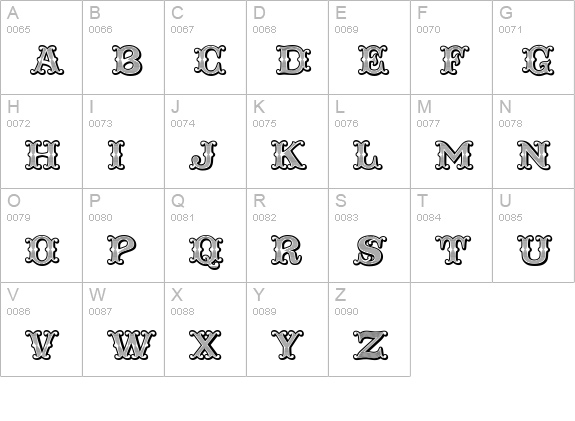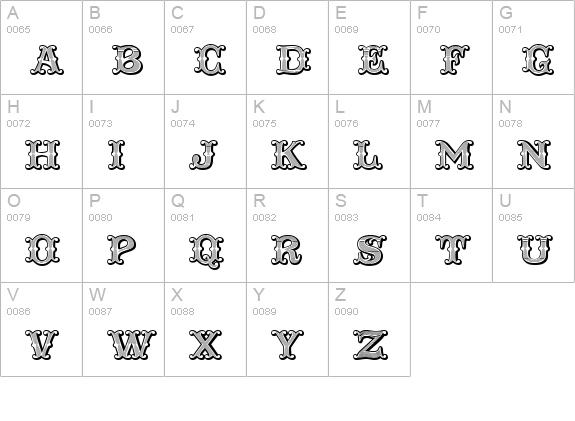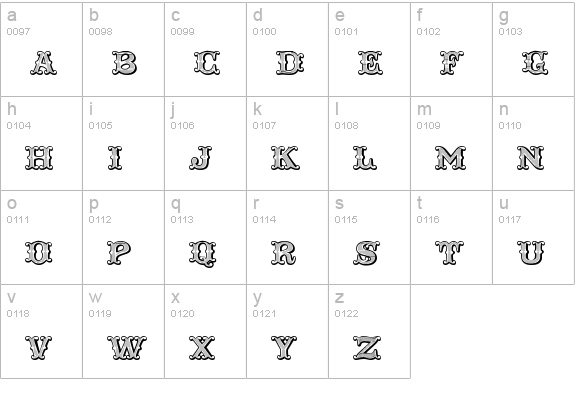
Introducing Taqueria Open Special Font, a vibrant and captivating typeface that will add a touch of Mexican flair to your design projects. This font is perfect for creating eye-catching headlines, posters, logos, and more. With its bold and playful letterforms, Taqueria Open Special Font exudes a cheerful and festive vibe, reminiscent of the lively atmosphere found in traditional taquerias. Each character is expertly crafted with attention to detail, reflecting the authenticity and passion of Mexican cuisine. What makes Taqueria Open Special Font even more enticing is that it is available for free. Yes, you heard it right, this incredible font can be yours without spending a dime. Simply head over to FontsMarket.com, and you'll be able to freely download and start using Taqueria Open Special Font in your projects right away. Don't miss out on this opportunity to spice up your designs with the bold and flavorful Taqueria Open Special Font. Download it now and let your creativity soar!